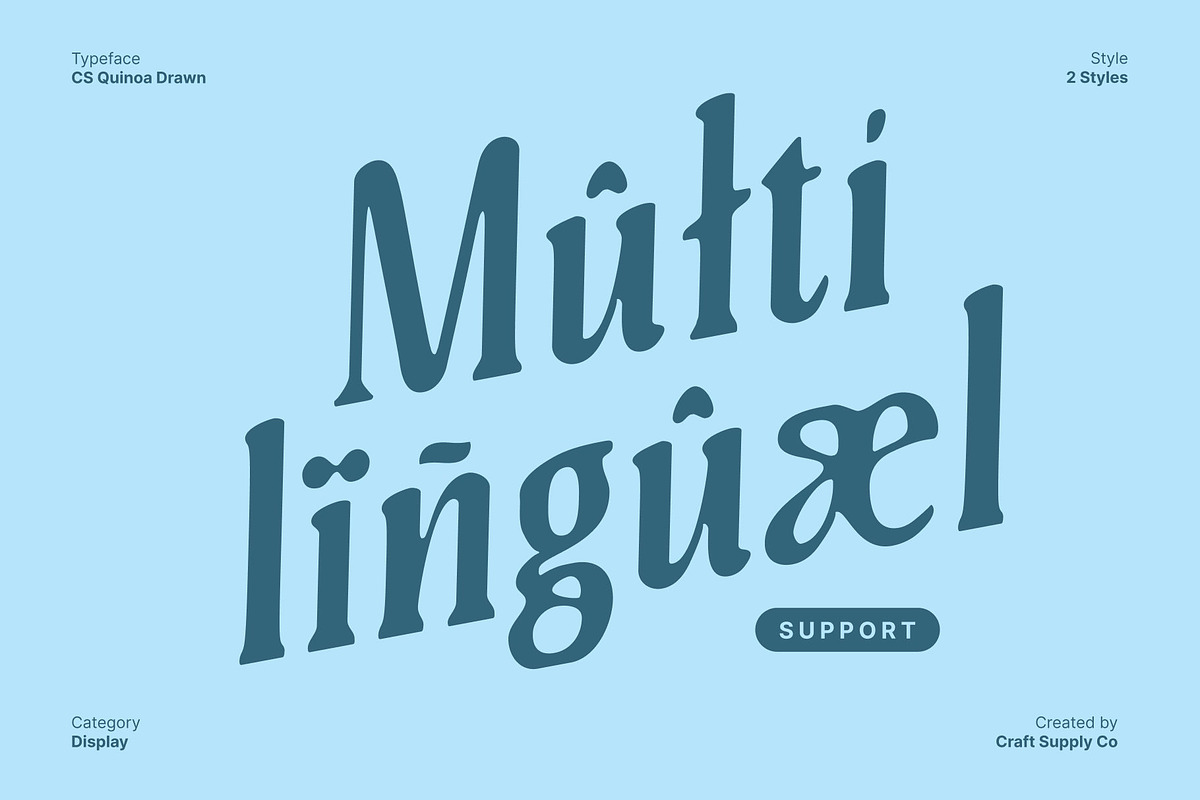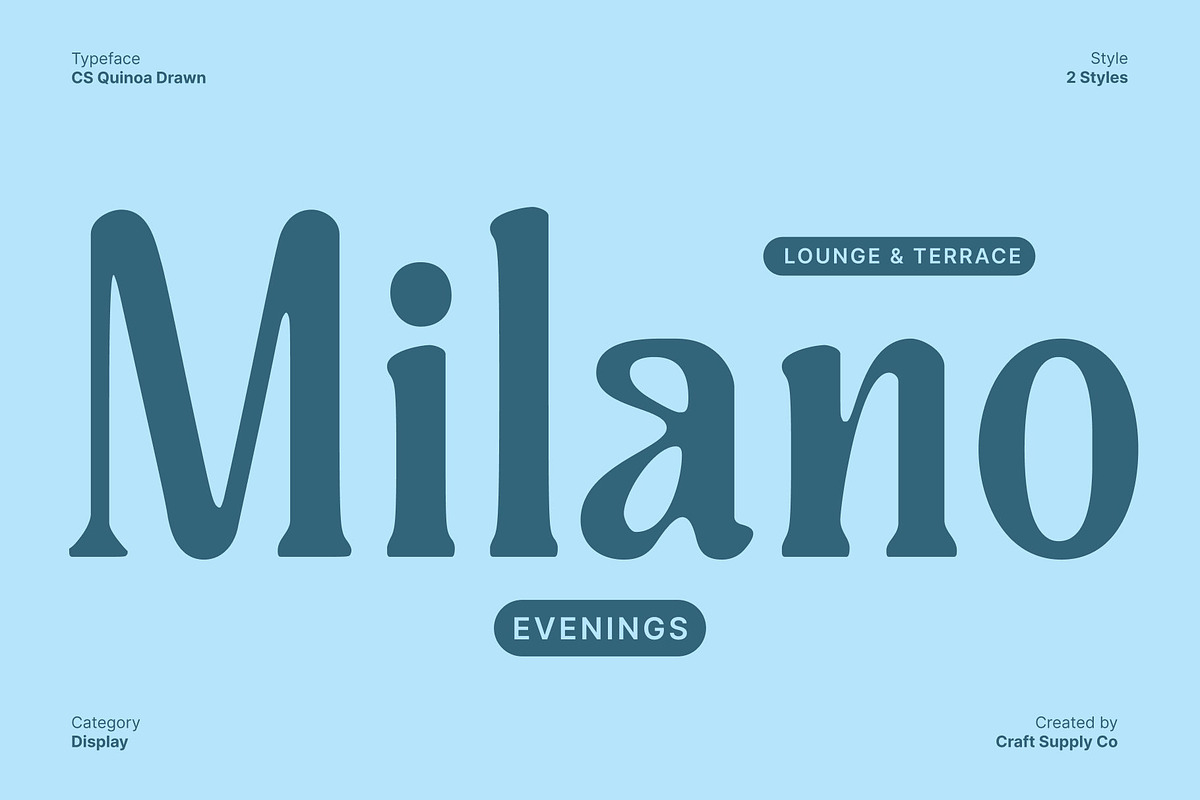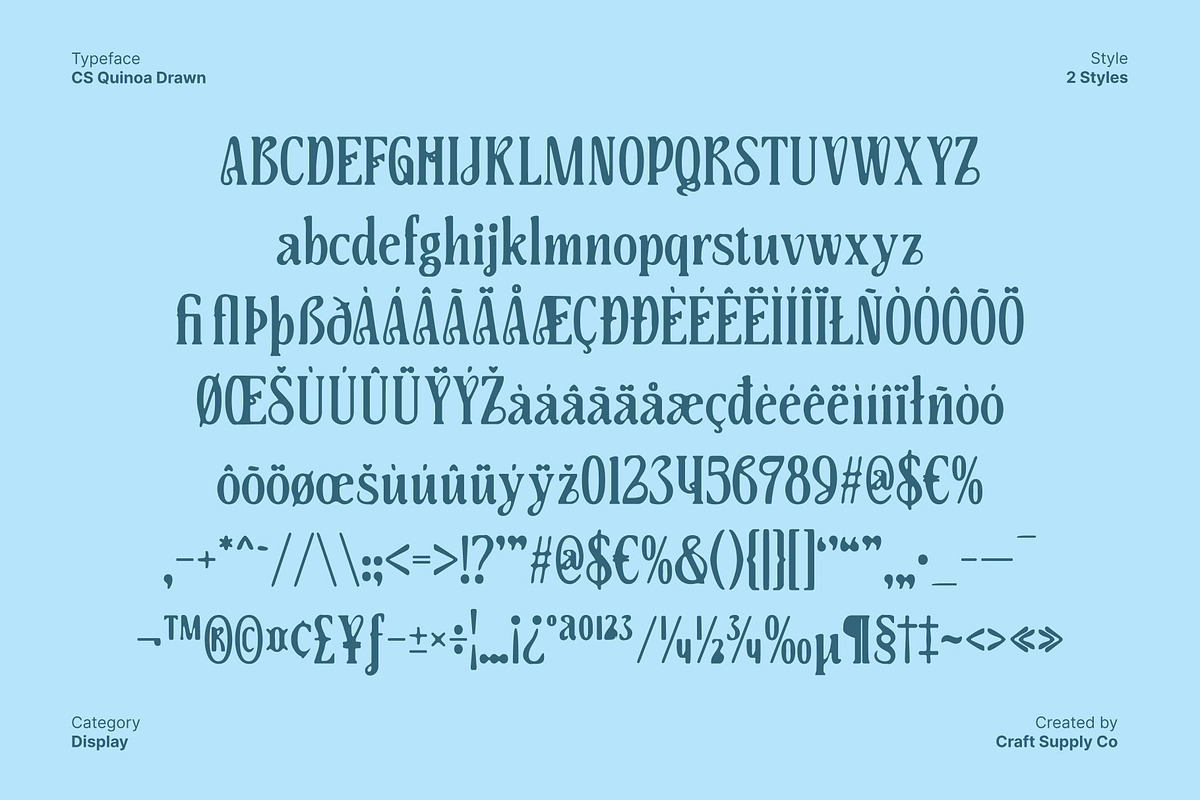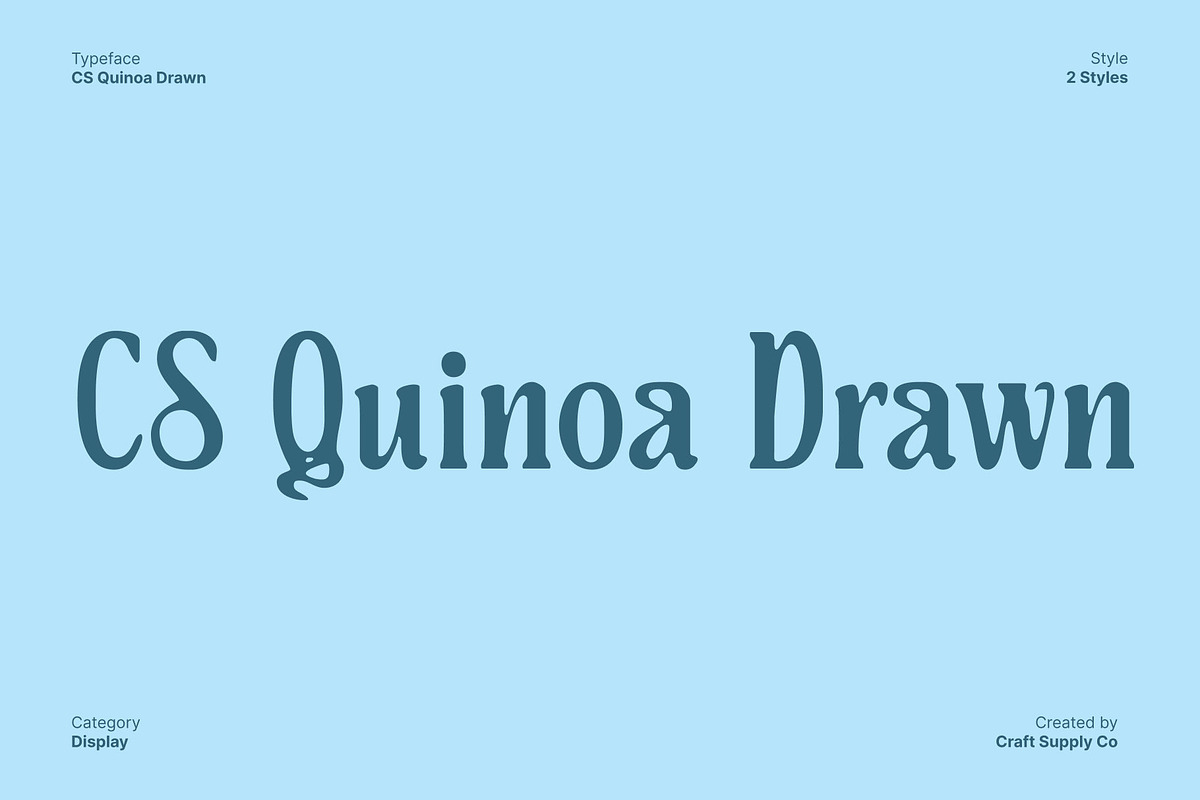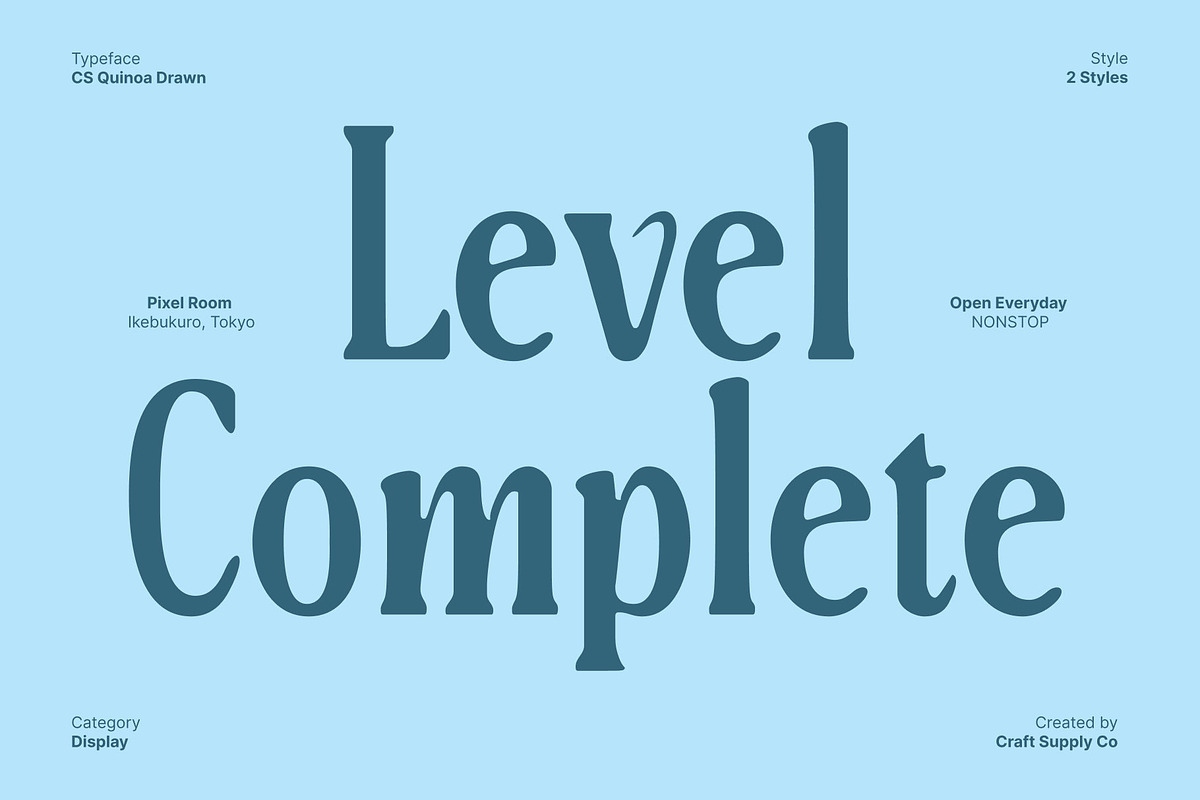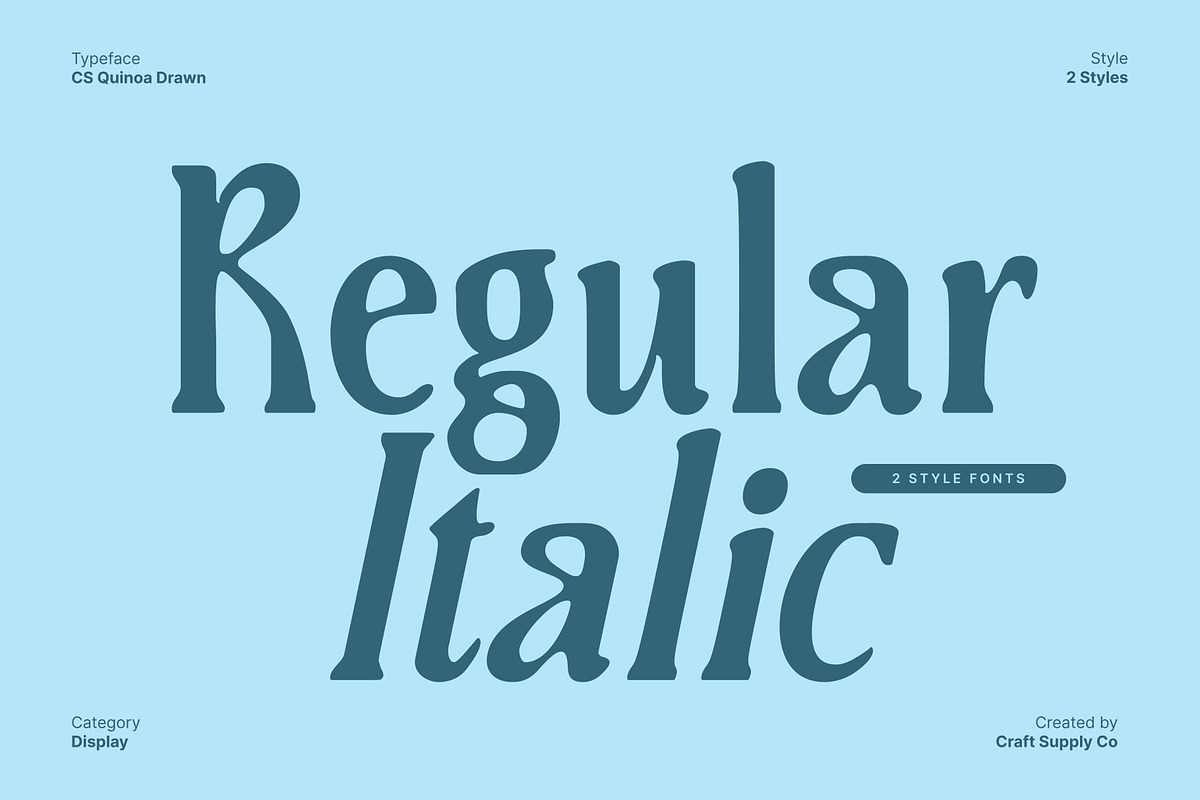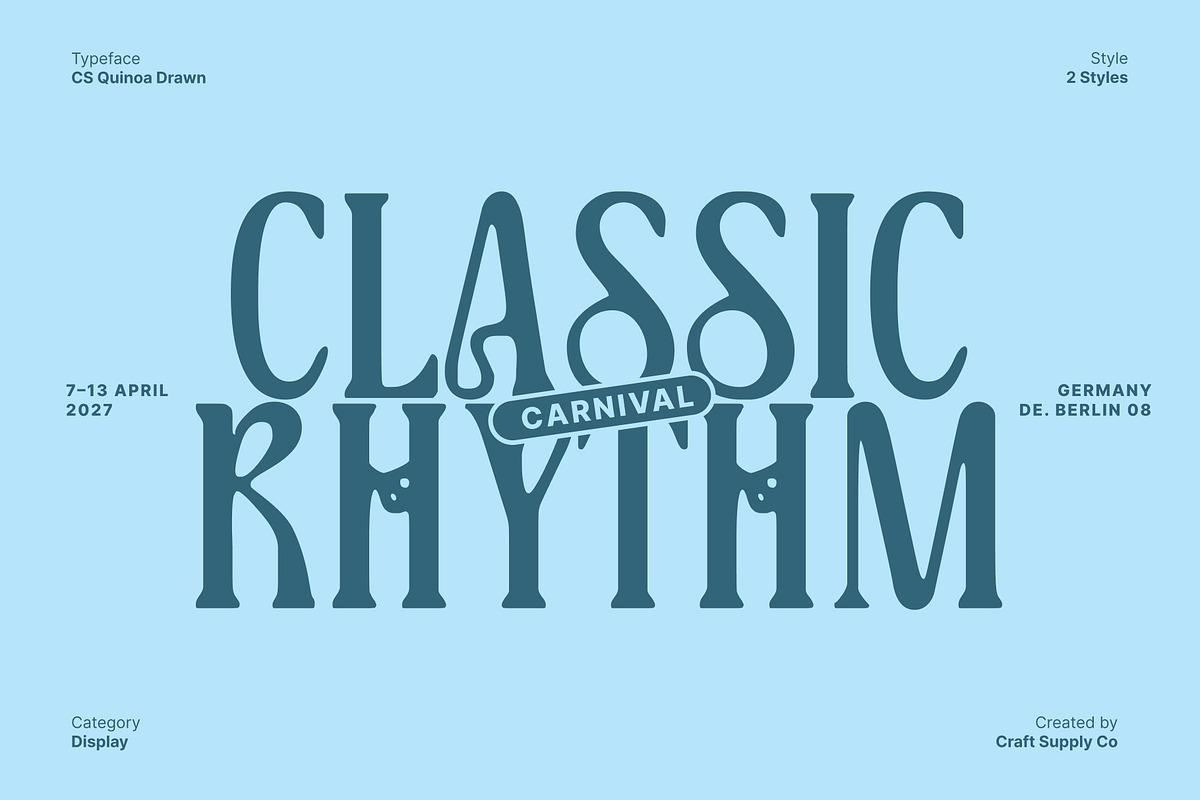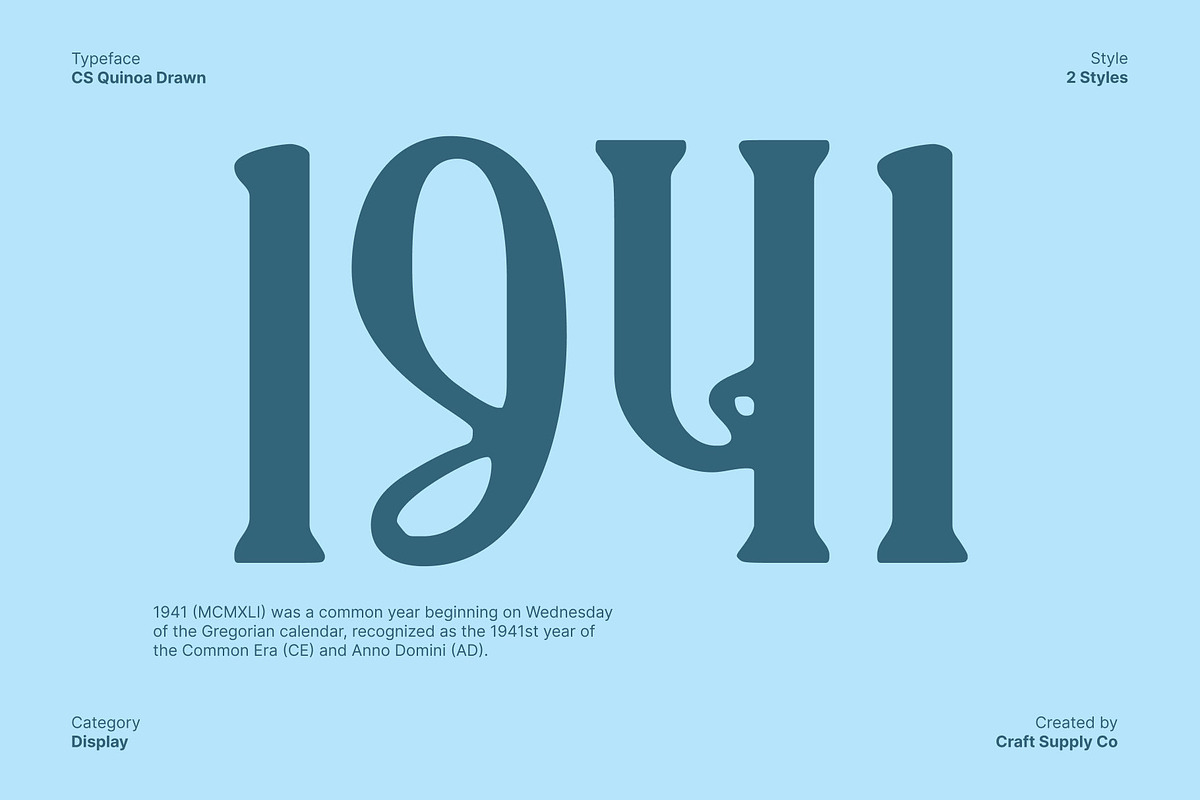
CS Quinoa Drawn
CS Quinoa Drawn – Modern Serif Font with Artistic Terminals
Approachable Modern Serif Style This is an approachable modern serif font designed with artistic terminals that give it a stylish and contemporary character. Its balanced proportions and soft details create a friendly yet refined appearance, making the typeface feel inviting without losing its modern edge. The artistic terminals add subtle flair to each letterform, allowing the font to stand out while remaining clear and readable.
Drawn Texture for Handmade Expression The drawn texture enhances with a handcrafted, expressive quality. Gentle imperfections and organic strokes introduce warmth and authenticity, giving the font a natural, human feel. This texture enriches the typography with depth and personality, making it feel more personal and creative rather than rigid or mechanical.
Stylish Character with Artistic Personality This font blends modern structure with artistic expression, resulting in a typeface that feels stylish and visually engaging. Its distinctive terminals and textured finish create a unique rhythm across words and headlines, adding charm and individuality to any layout. The font communicates creativity and confidence while maintaining a calm, approachable tone.
Ideal for Logos, Posters, and Artistic Branding Designed for expressive display use, this font works beautifully in logos, posters, branding systems, and artistic visual identities. Its combination of modern serif form, artistic terminals, and hand-drawn texture helps create memorable designs with character and warmth.